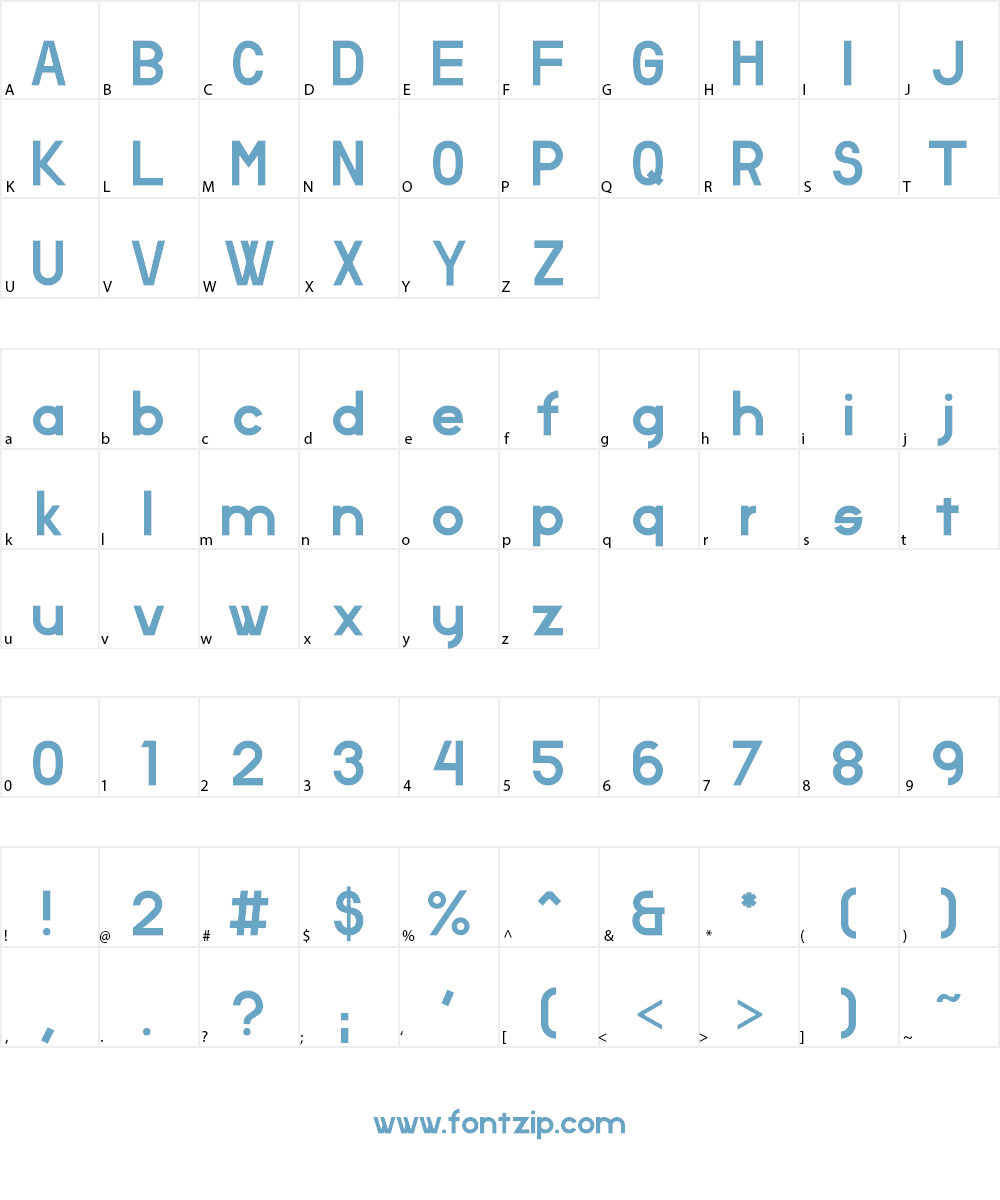
Personal Font Mix (aka 538Lyons V2) is a font that is a mix of the fonts 629Lyric and 538Lyons Font. So what I would like to say: 629Lyric 538Lyons = 629Lyons.
So yeah, I really wanted to do a personal font mix.